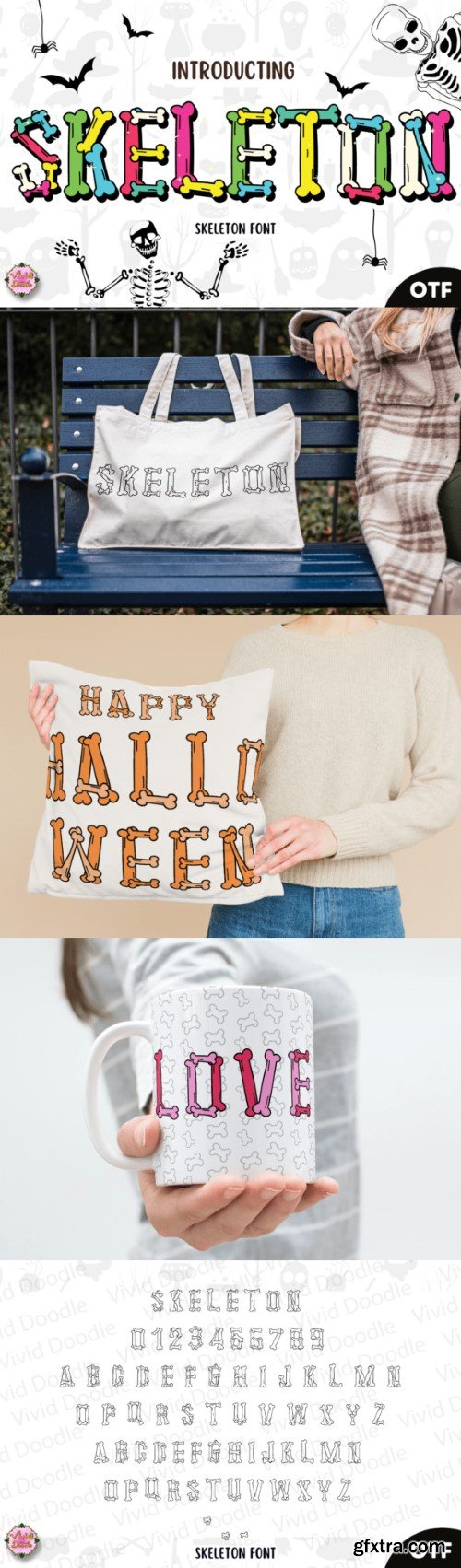
Unleash spine-chilling creativity with our Skeleton font—a bone-chilling typeface perfect for Halloween, skull-themed designs, and party nights. Each letter is intricately shaped like skeletal elements, adding a macabre touch to your creations. Ideal for T-shirts, bags, wallpapers, crafts, and DIY projects, this font seamlessly blends a spooky aesthetic with a hint of frightful fun. Transform your creations into a visually captivating and eerie experience with this uniquely crafted and versatile typeface, making a bold statement for any bone-chilling occasion!